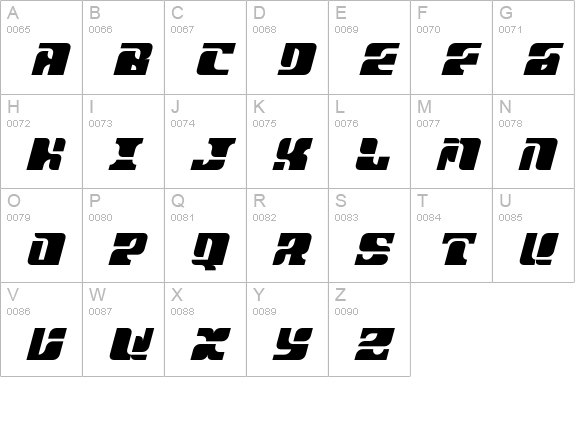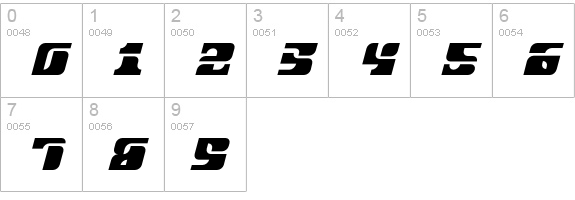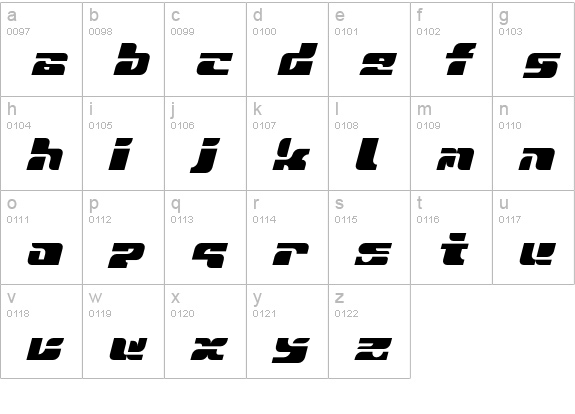
Sportswear-EFaster Font Details
Introducing Sportswear-EFaster, a dynamic and energetic font that perfectly captures the spirit of athleticism and sportsmanship. With its sleek and bold design, this font is sure to make a powerful statement in any sports-related design project. Sportswear-EFaster is the epitome of speed and agility, reflecting the fast-paced nature of sports. Its sharp edges and strong lines convey a sense of strength and determination, while its modern and contemporary style gives it a fresh and edgy appeal. This font is not only visually striking but also highly versatile. It can be used for a wide range of sports-related designs, including logos, team jerseys, posters, and more. Whether you're designing for a professional sports team or organizing a local sports event, Sportswear-EFaster will add a touch of professionalism and excitement to your project. One of the best things about Sportswear-EFaster is that it is freely available to download at FontsMarket.com. This means that you can easily access and use this font without any hassle or restrictions. Whether you're a professional designer or a sports enthusiast looking to add a personal touch to your projects, Sportswear-EFaster is the perfect choice. So, why wait? Download Sportswear-EFaster today and take your sports designs to the next level. With its bold and captivating style, this font is sure to make a lasting impression and leave a mark on your audience. Get ready to showcase your passion for sports with Sportswear-EFaster, the ultimate font for athletes and sports lovers alike.